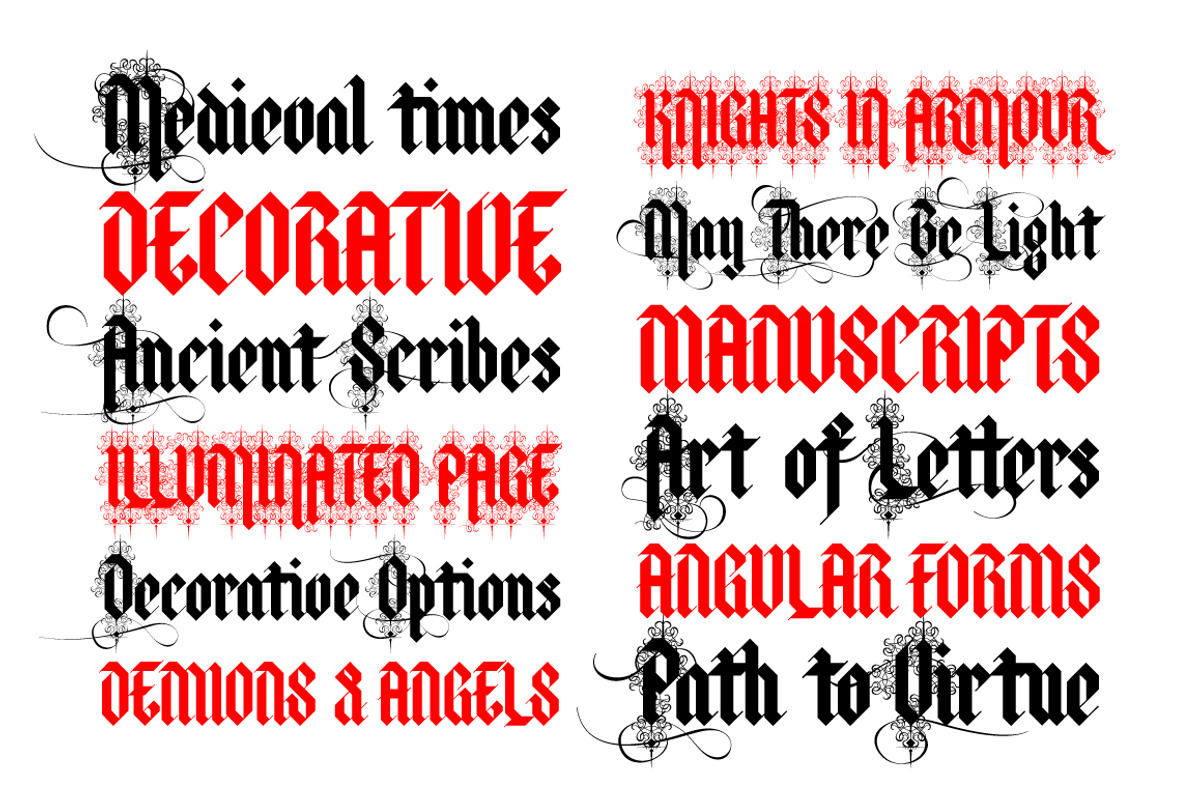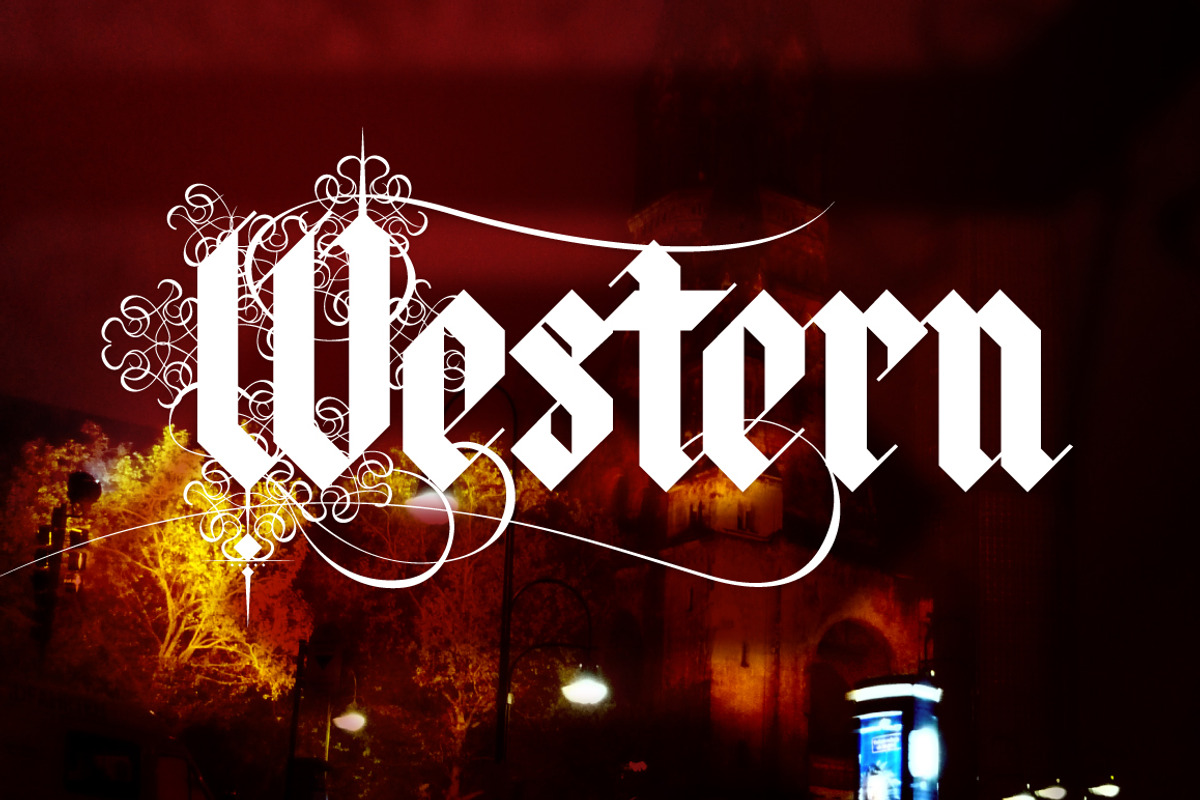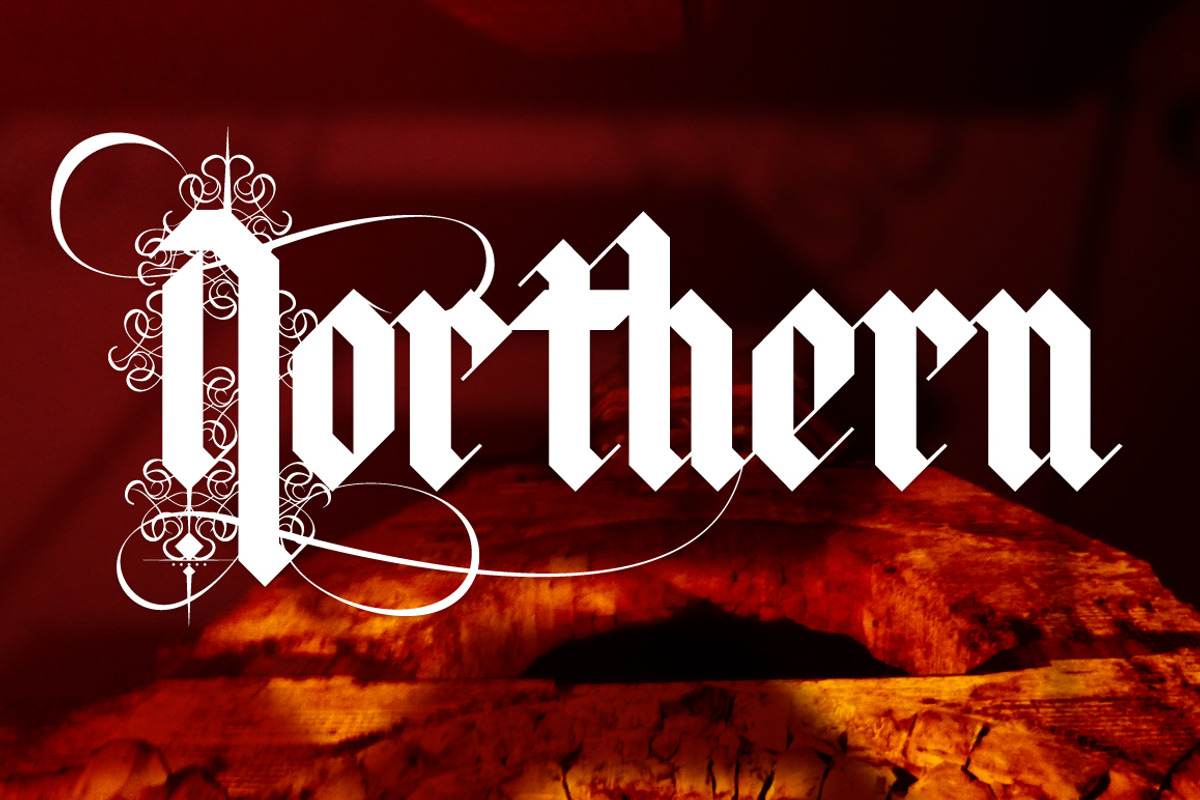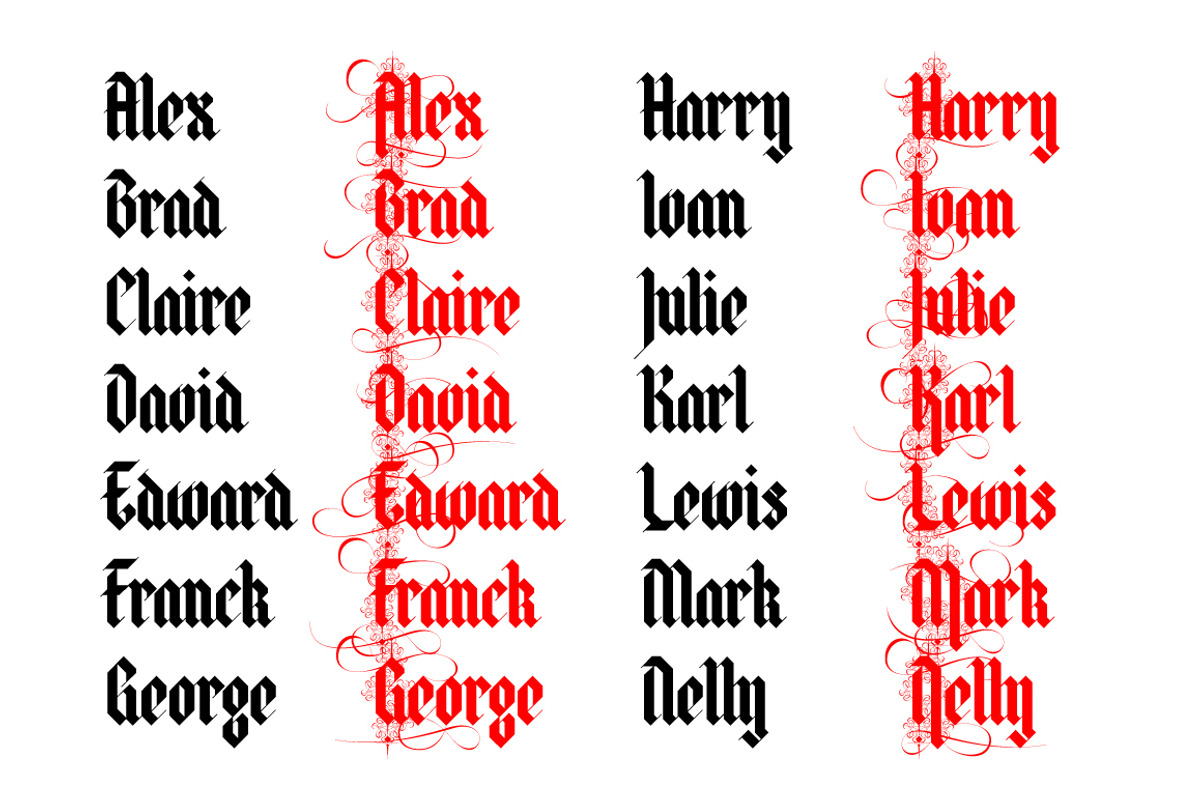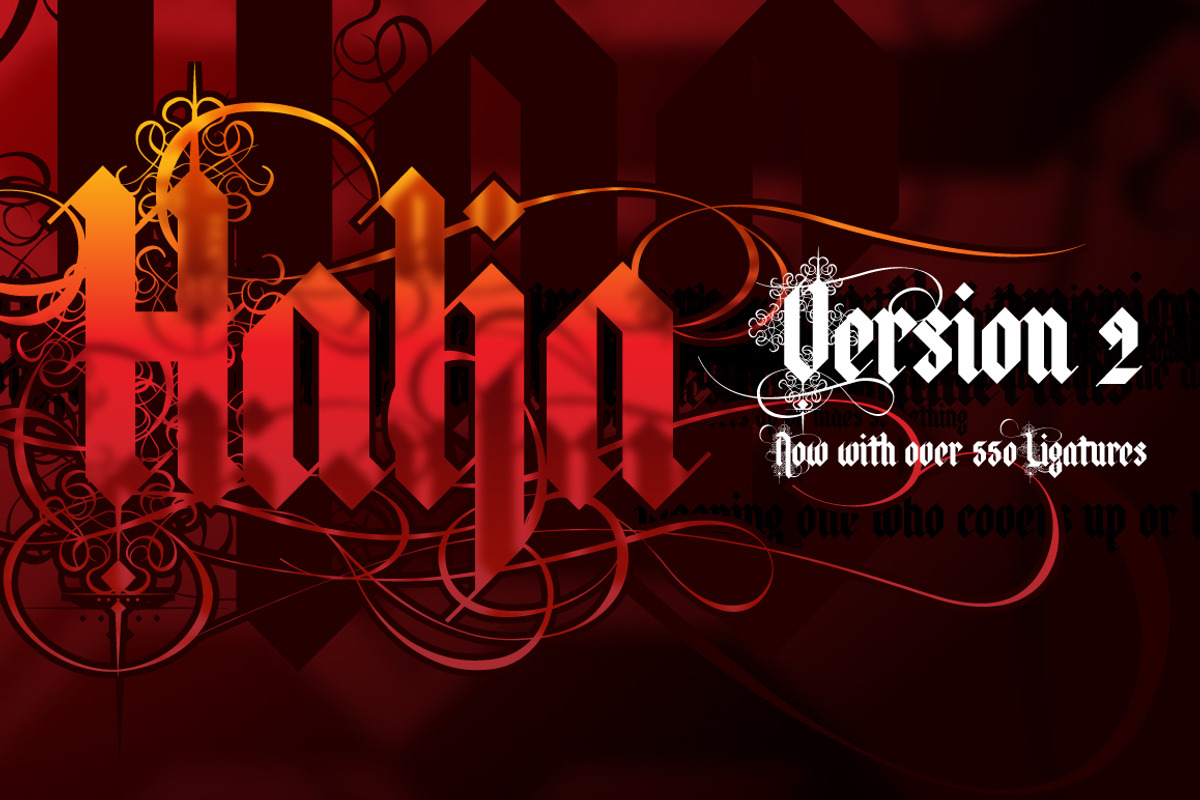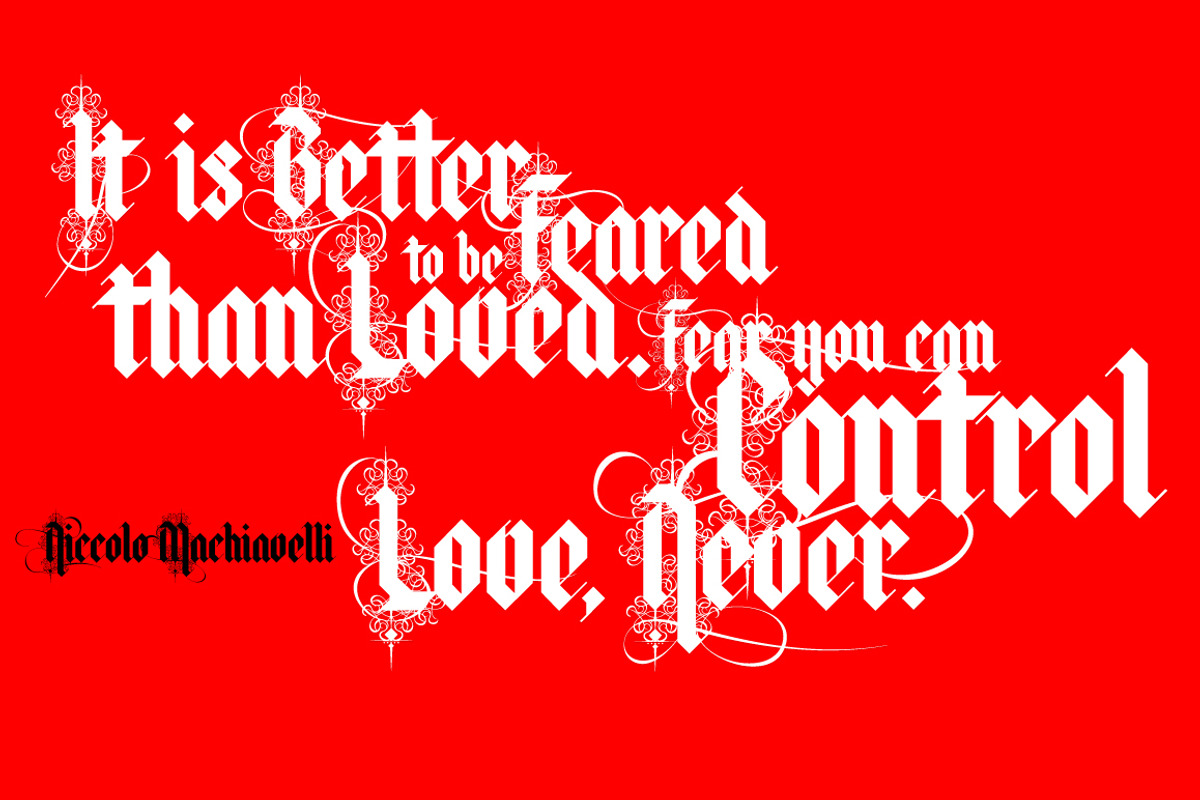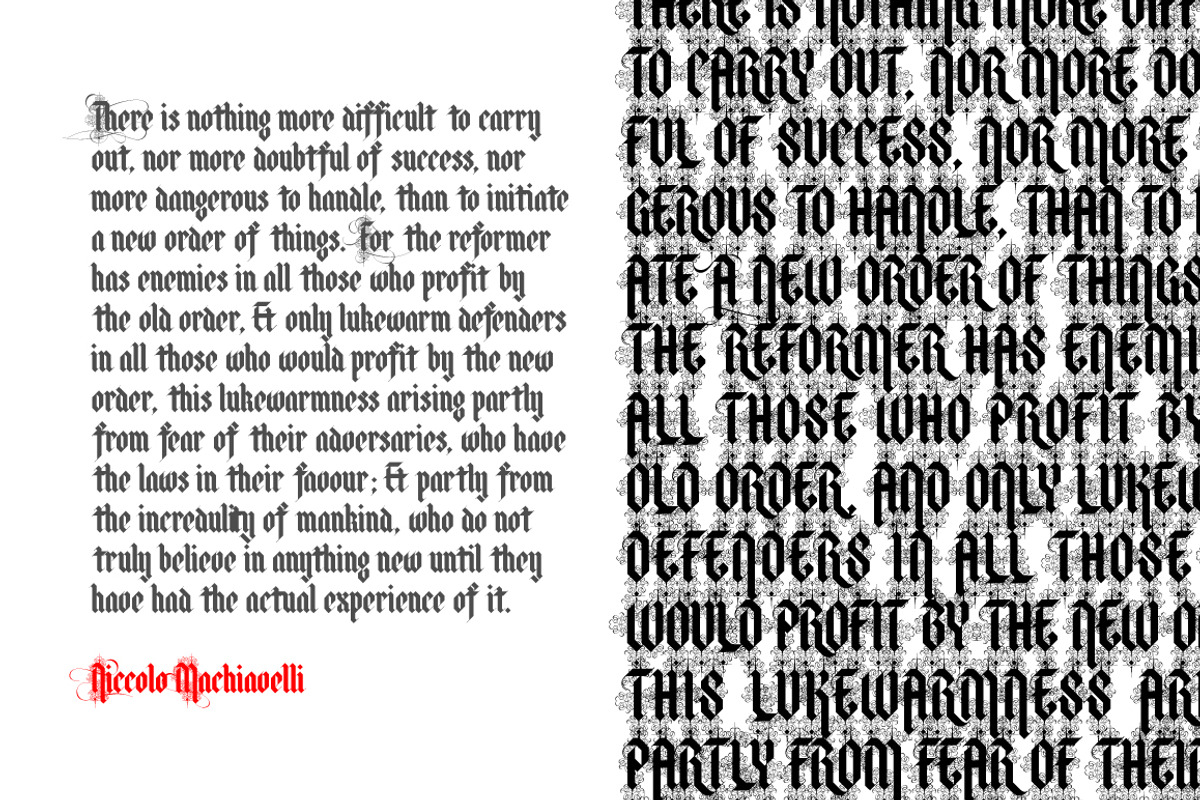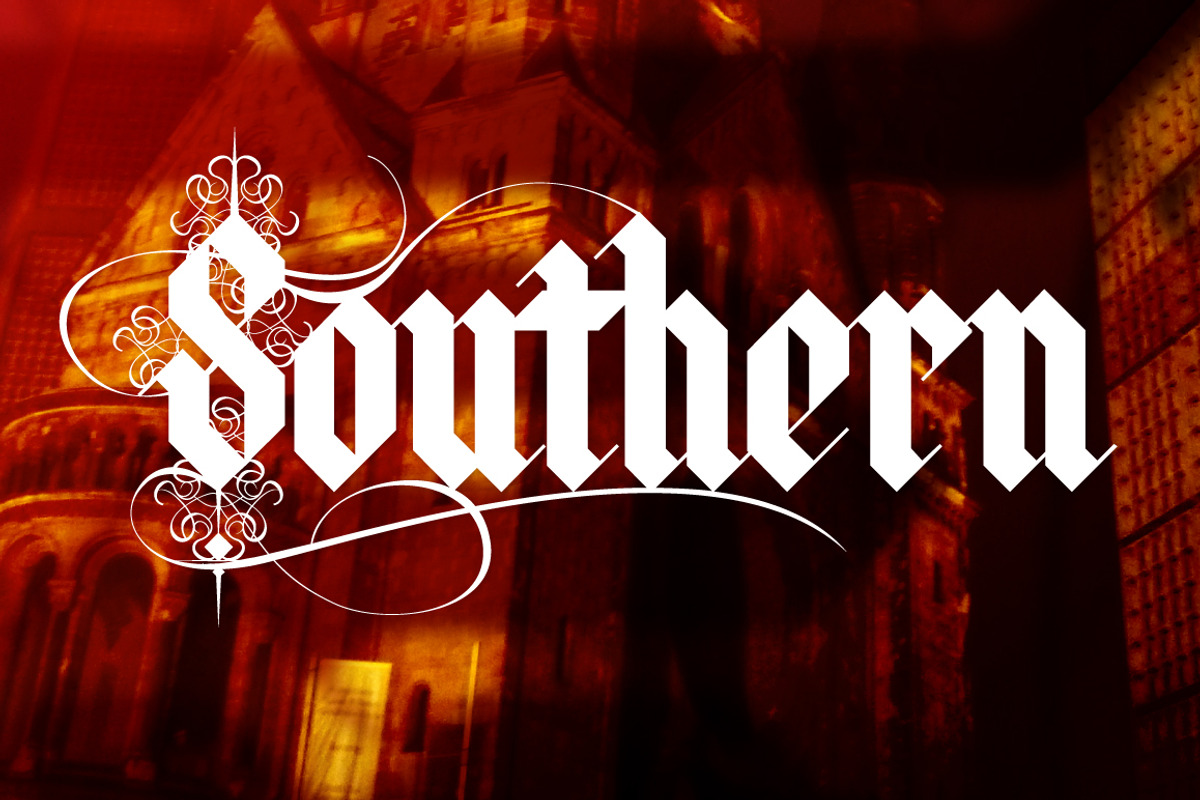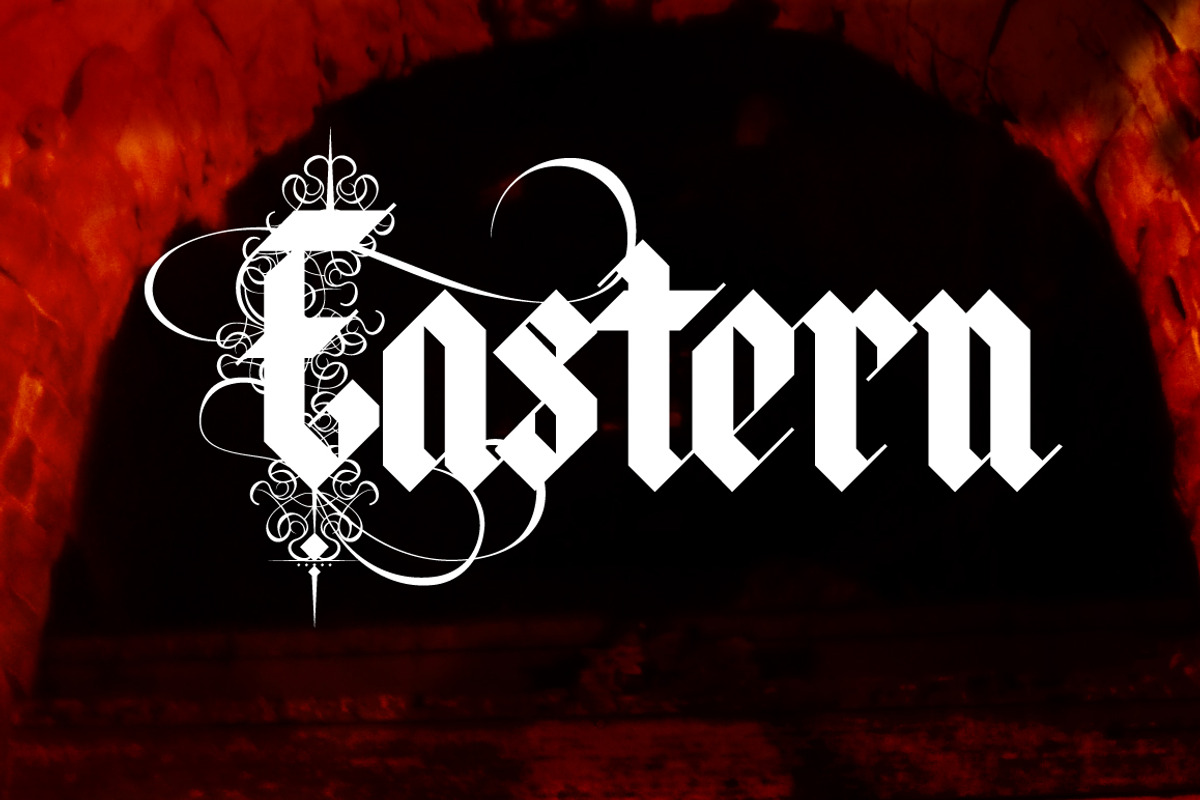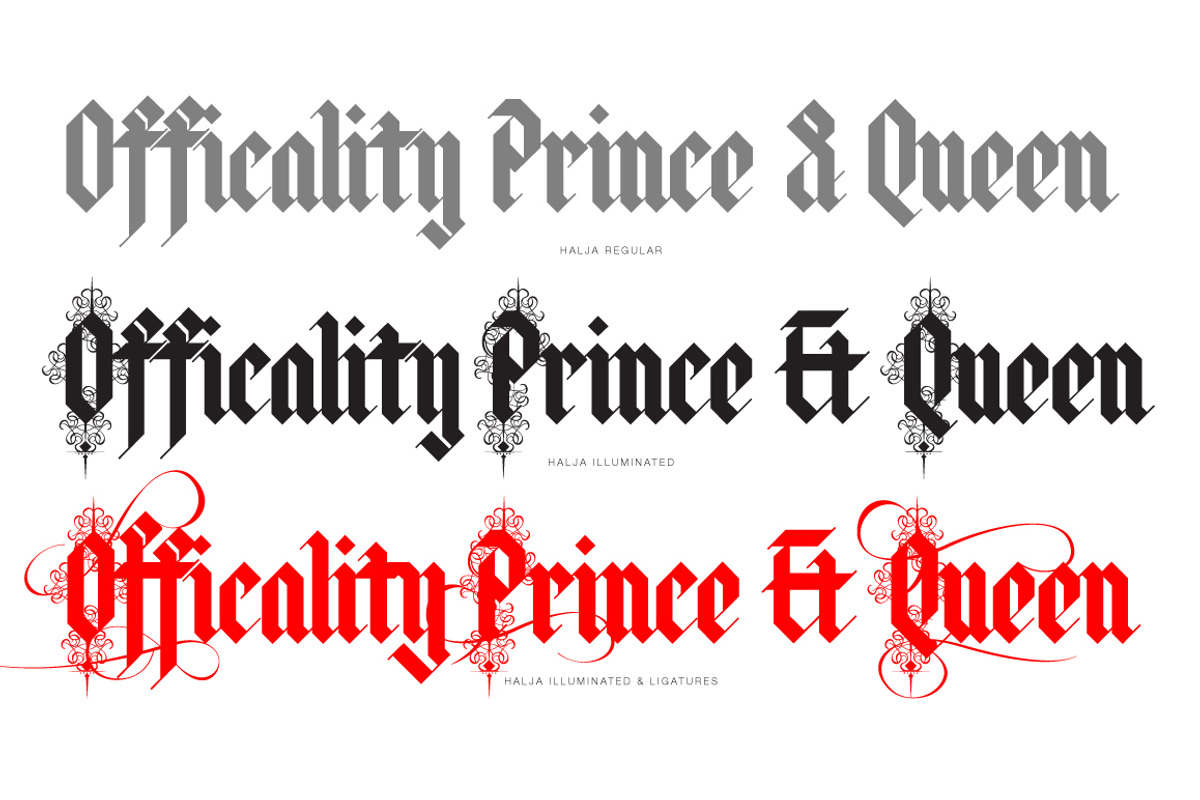
Halja
Halja is a modular blackletter font with sharp edges and a bold presence. The font is available in 2 styles, either regular or Illuminated that is a hommage to the fine handcrafted letters. Thanks to a series of over 550 ligatures, Halja plays on recreating those flourishes and swirls to lighten up your layout. Due to it's heavy stroke contrast and fine detail, this font is best suited to use in display settings or logos.
Opentype features: Ligatures, Lining numerals